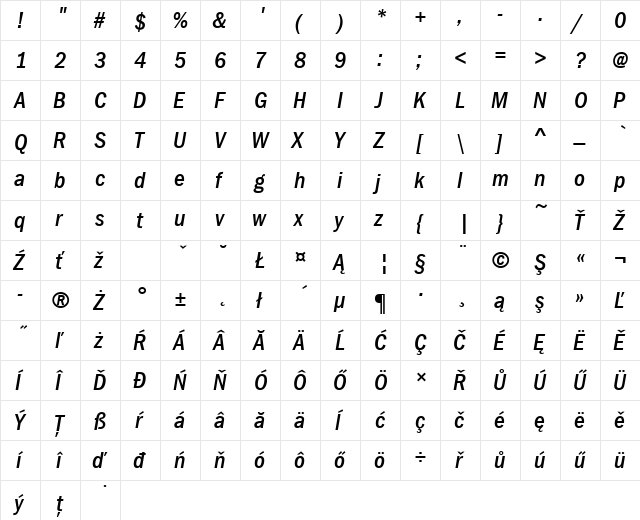
FranklinGotItcTEEMedCon Italic Font Preview
FranklinGotItcTEEMedCon Italic
Design Context for FranklinGotItcTEEMedCon Typeface
FranklinGotItcTEEMedCon takes a measured approach to typography — its balanced proportions and neutral character make it a reliable workhorse for both digital and print work. Its italic angle brings a sense of urgency and motion to the letterforms.
Pro Tip: Try FranklinGotItcTEEMedCon for annotation and caption copy alongside an upright companion — the contrast in angle creates a dynamic but ordered typographic system.